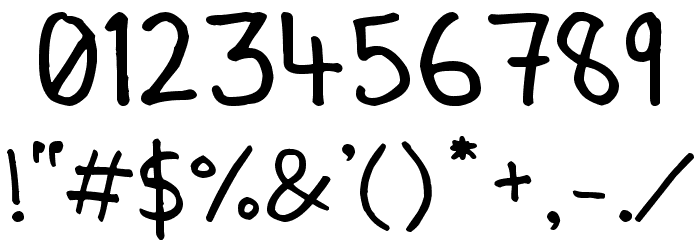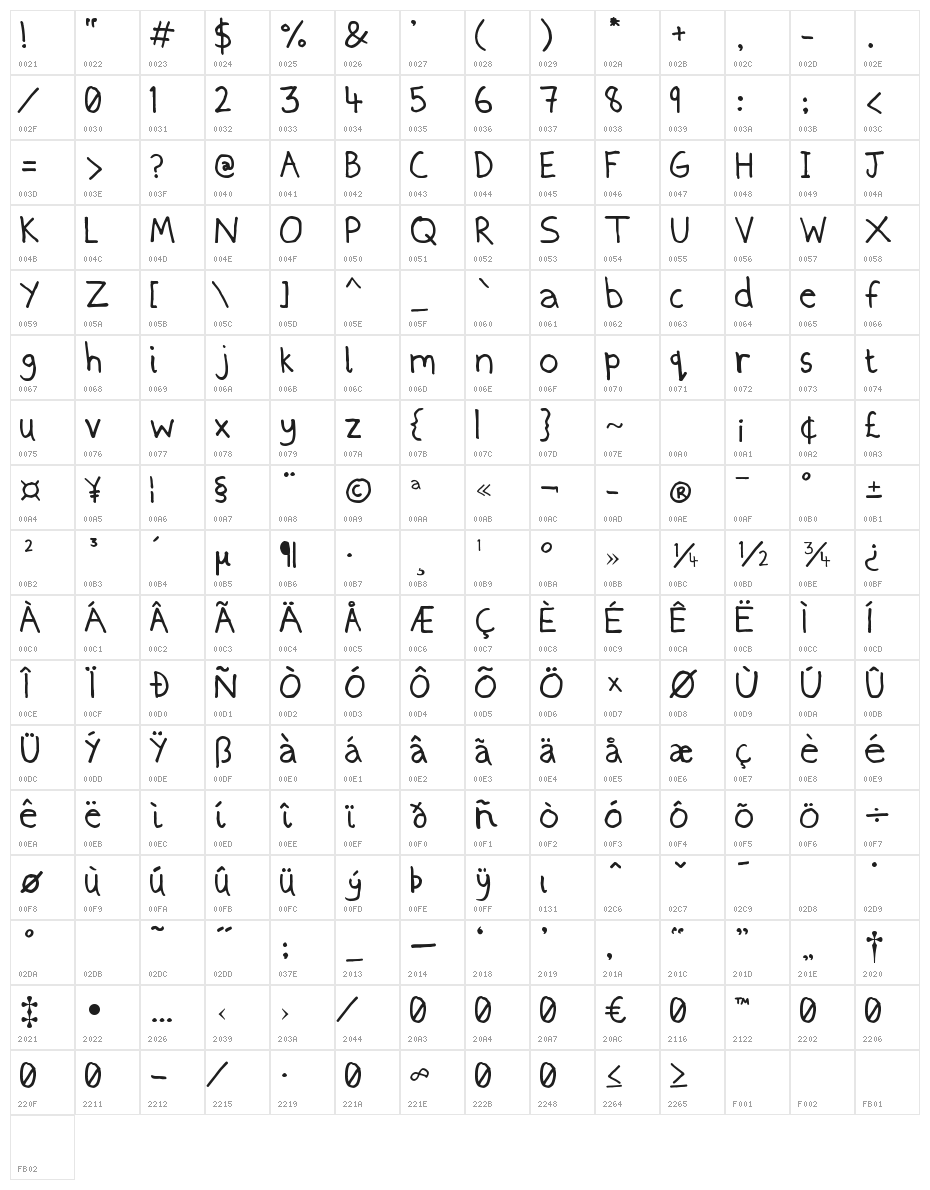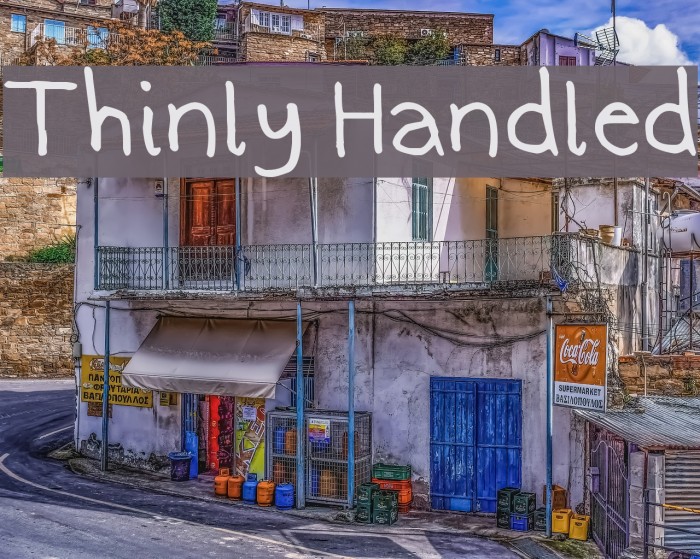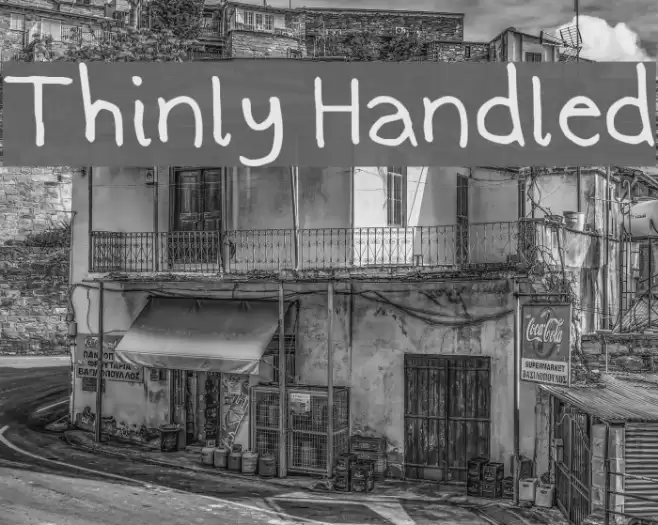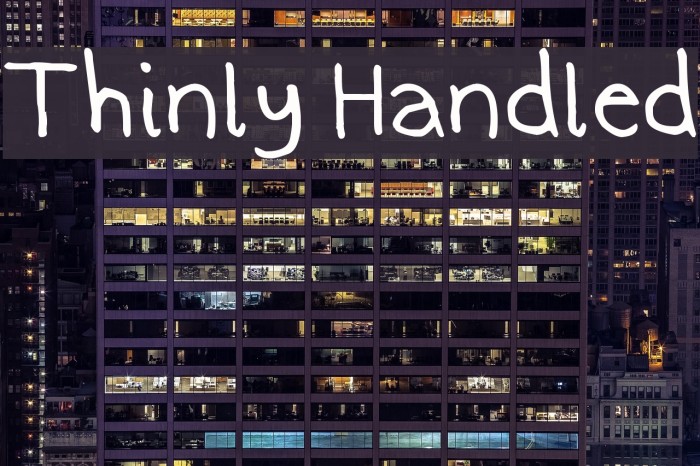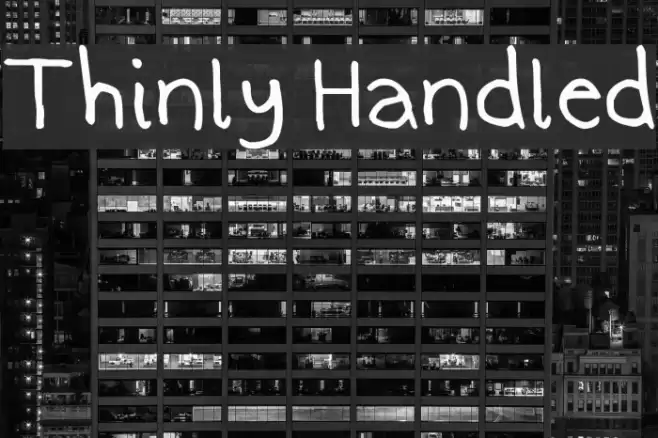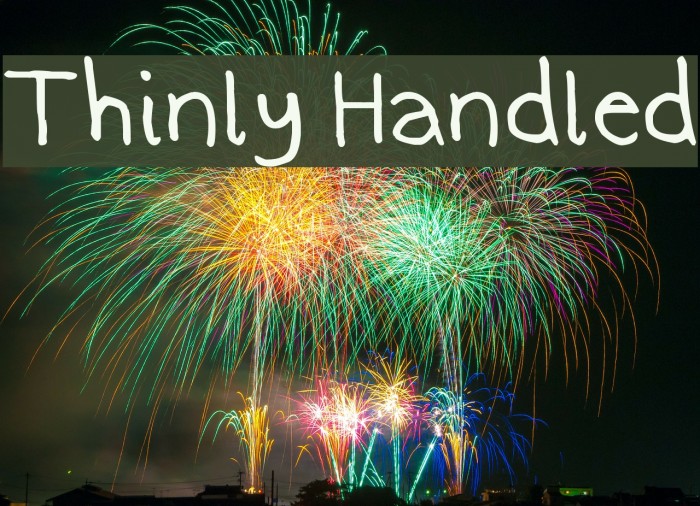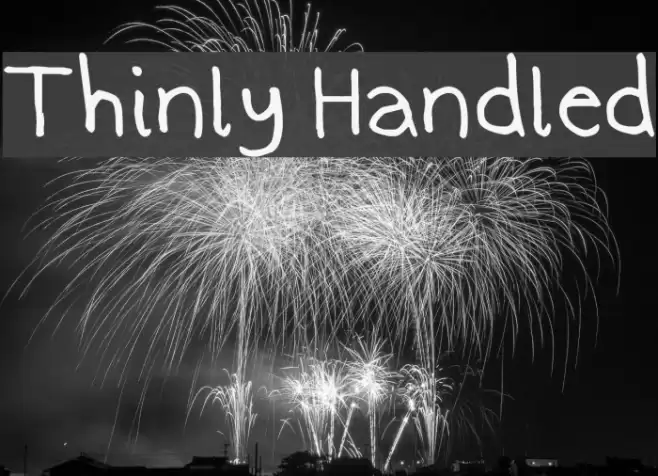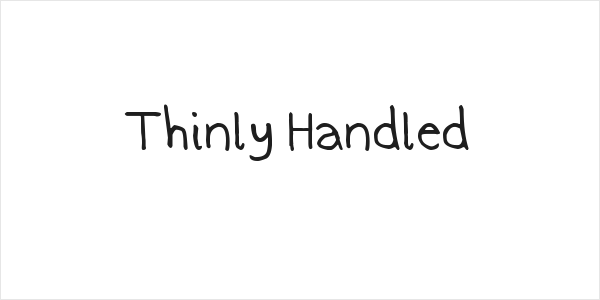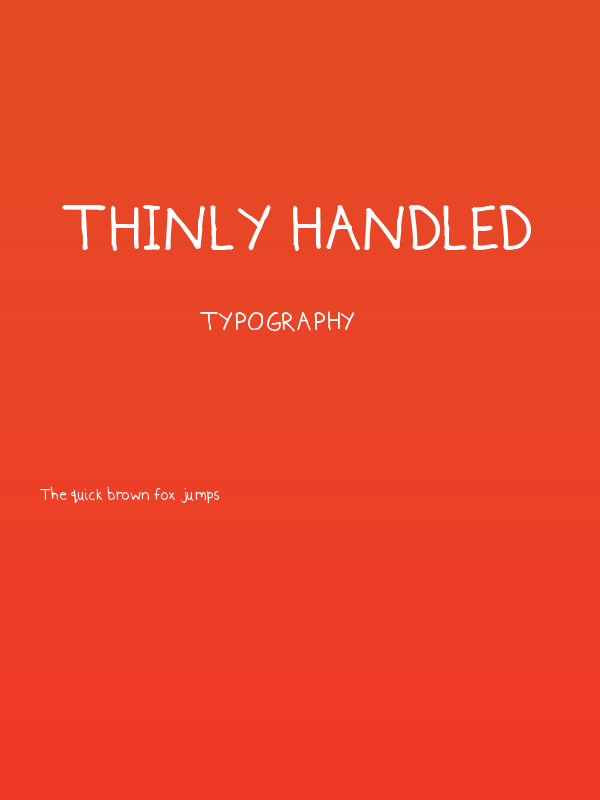
Thinly Handled Font
Thinly Handled Description
This font features a playful, handwritten style with a casual and informal appearance. The characters are slightly irregular, giving it a personal and approachable feel. The strokes are consistent in thickness, maintaining a uniform look throughout. The uppercase and lowercase letters are well-proportioned, with rounded edges that add to the font's friendly demeanor. The numbers and special characters follow the same design principles, ensuring cohesion across all elements. This font is versatile and can be used in various creative projects where a relaxed and inviting tone is desired.